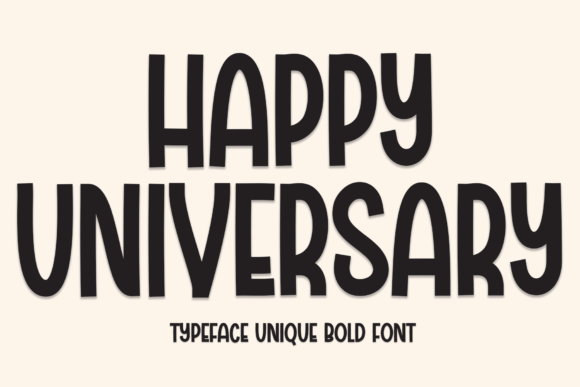
Embark on a typographic odyssey with Happy Universary, a font family that embodies elegance, simplicity, and versatility. Crafted with meticulous precision, Happy Universary features a collection of clean and modern sans-serif fonts that will elevate your designs to new heights. Each character radiates with charm and sophistication, promising to add a touch of timeless beauty to your creative endeavors.
Journey through the world of design with Happy Universary, the font family that captures the essence of exploration and adventure. Its letters are like footprints in the sand, guiding you towards uncharted territories of creativity. Discover new horizons with each word you type, as Happy Universary's graceful curves and sharp angles dance together in perfect harmony.
Immerse yourself in the boundless possibilities that Happy Universary offers. From captivating wall displays that draw the eye to elegant wedding invitations that exude romance, Happy Universary effortlessly adapts to your design vision. Unleash your creativity with social media posts that pop, logos that leave a lasting impression, advertisements that entice and engage, and product packaging that demands attention.
Happy Universary is not just a font; it's a passport to a world where typography takes center stage. Its clean lines and minimalist aesthetic make it the perfect choice for product designs that exude sophistication. Elevate your labels with a touch of understated elegance, or let your photography shine with watermarks that blend seamlessly into the background.
Create stationery that reflects your unique style and personality with Happy Universary. Whether it's invitations for a special occasion or everyday correspondence, Happy Universary adds a touch of charm to every word. Experience the joy of writing with a font that feels as good as it looks, as your pen glides effortlessly across the page, leaving a trail of typographic beauty.
With Happy Universary, every project becomes an opportunity to showcase your impeccable taste and attention to detail. Its versatility extends to�らゆる�らゆるprojects that require exceptional typography, promising to transform your creative vision into a visual masterpiece. Embrace the allure of Happy Universary and embark on a journey of typographic exploration, where every word carries the weight of elegance and sophistication.